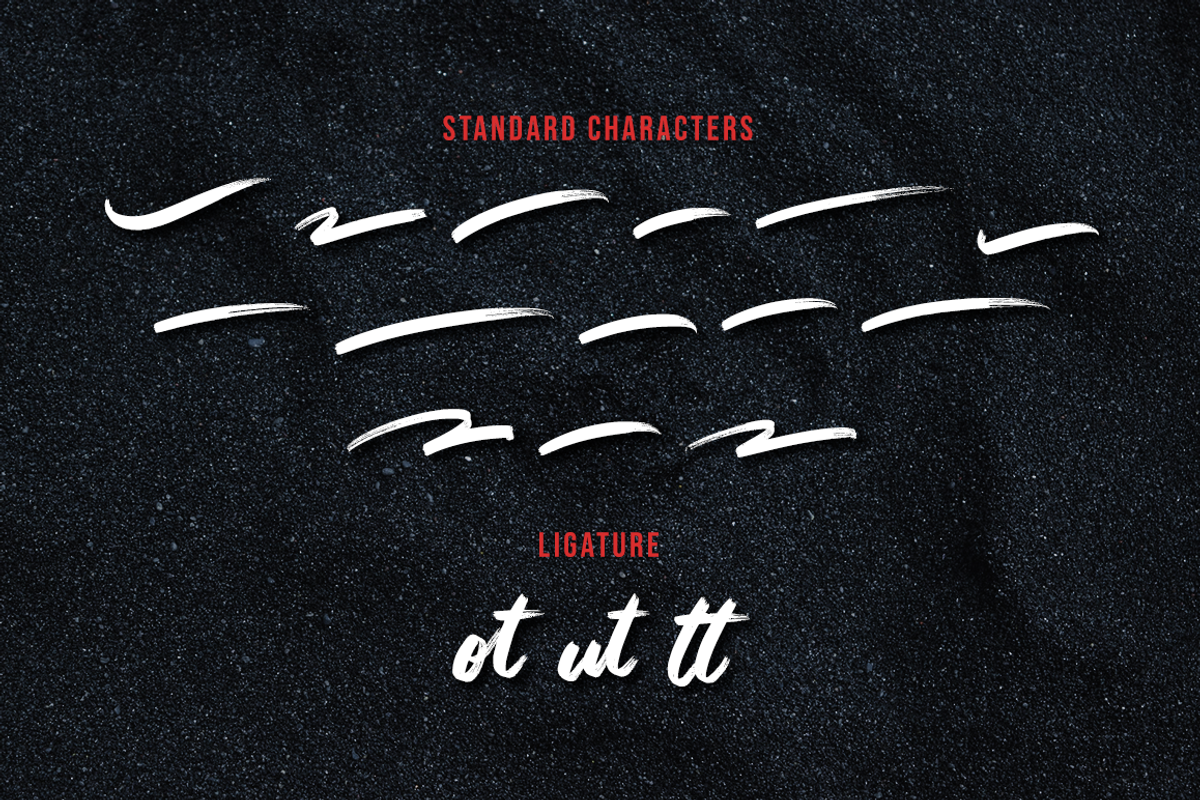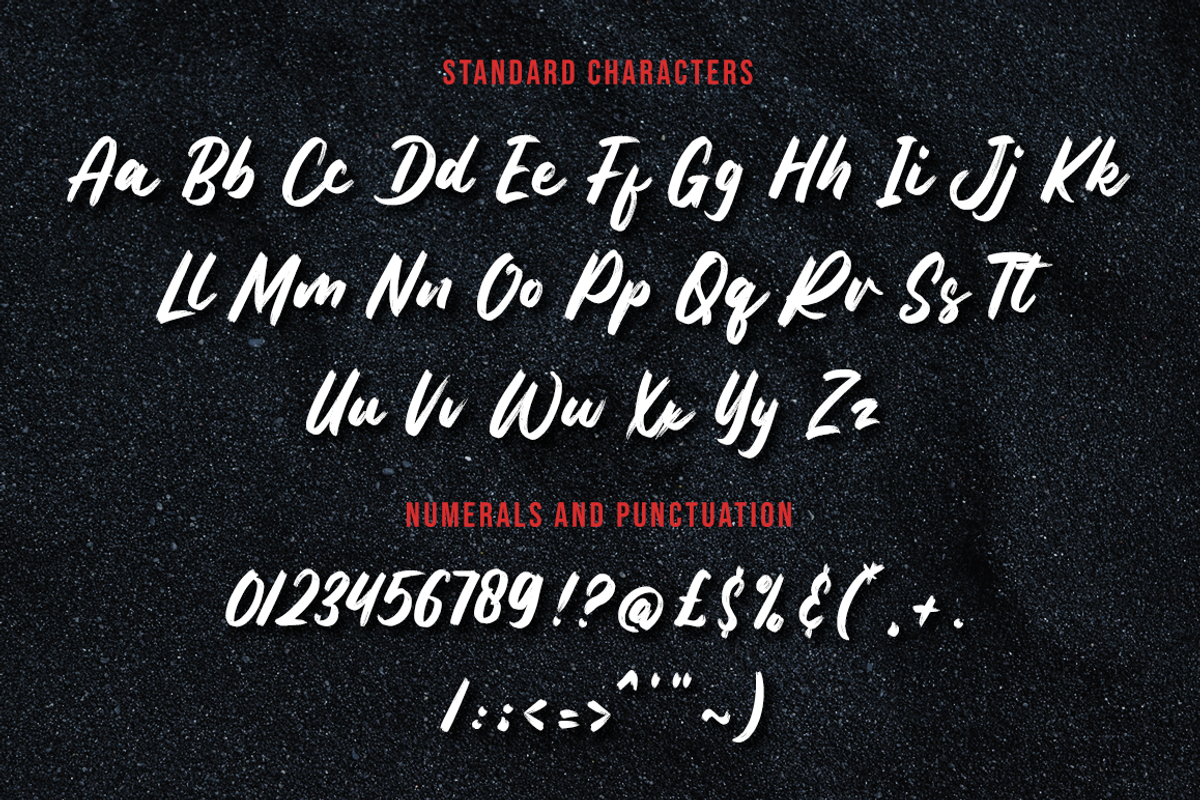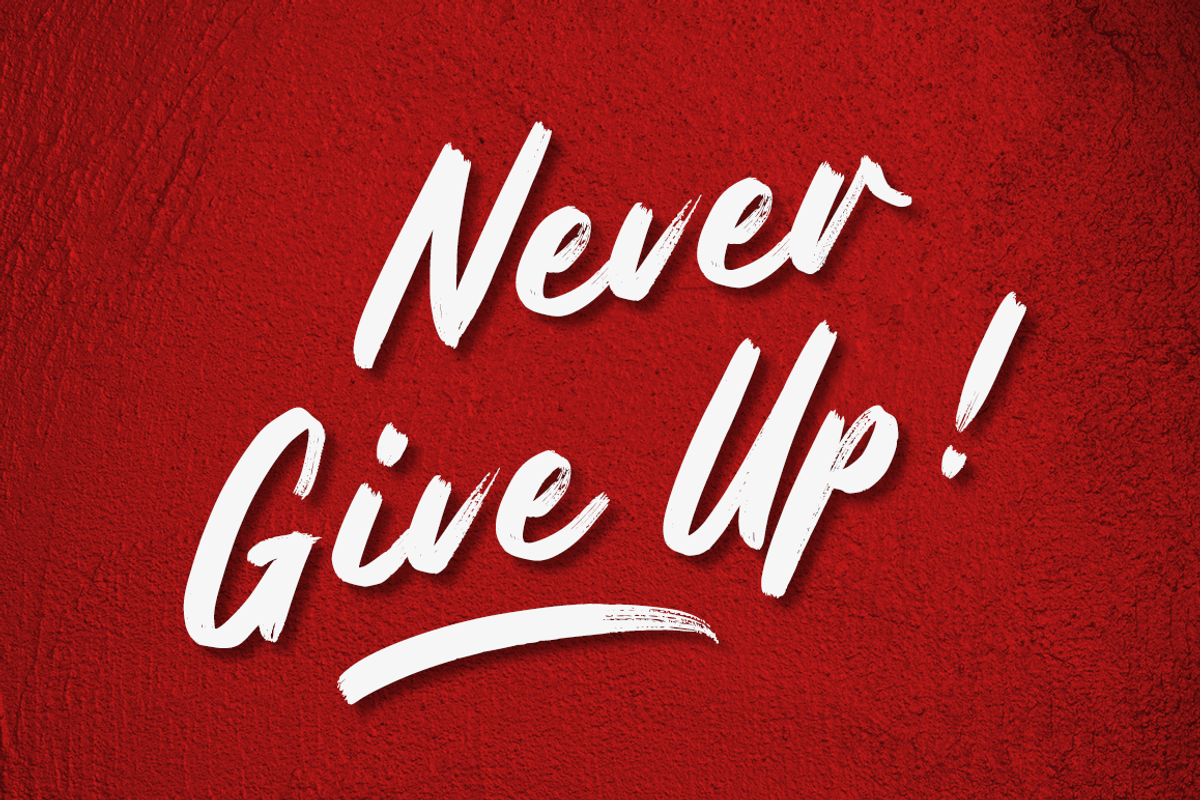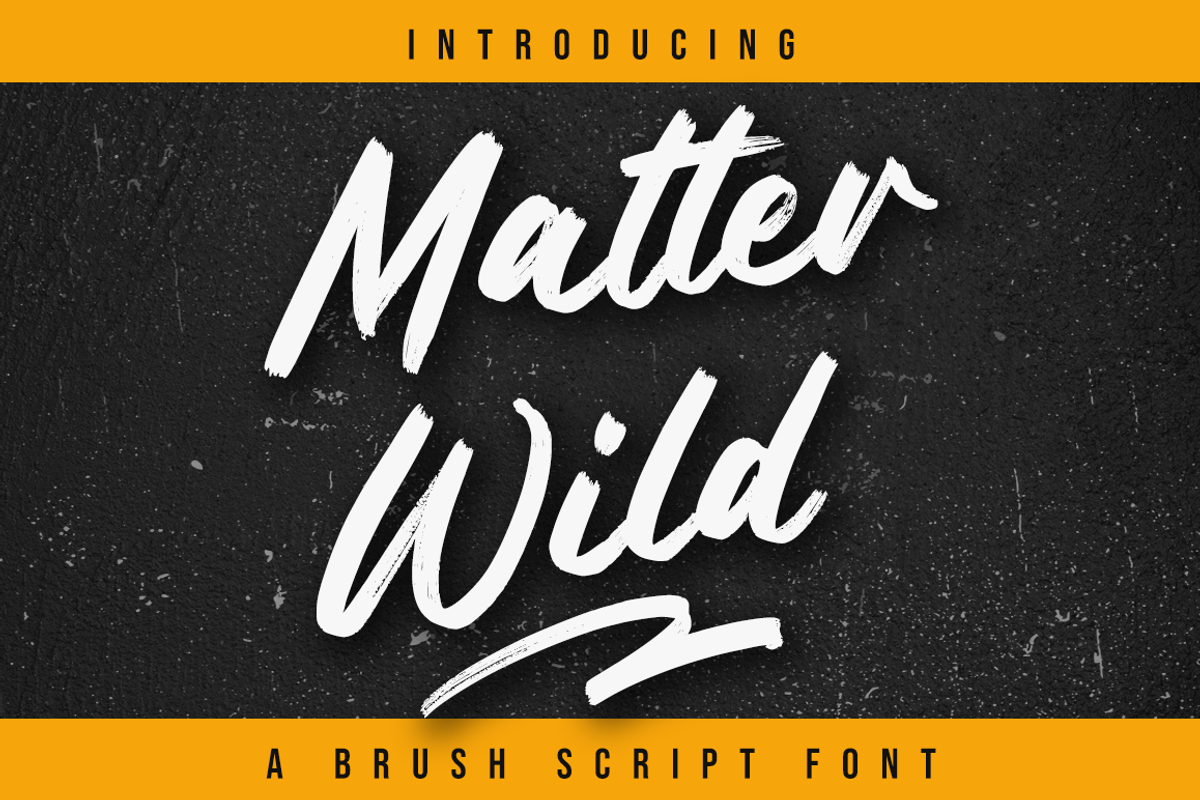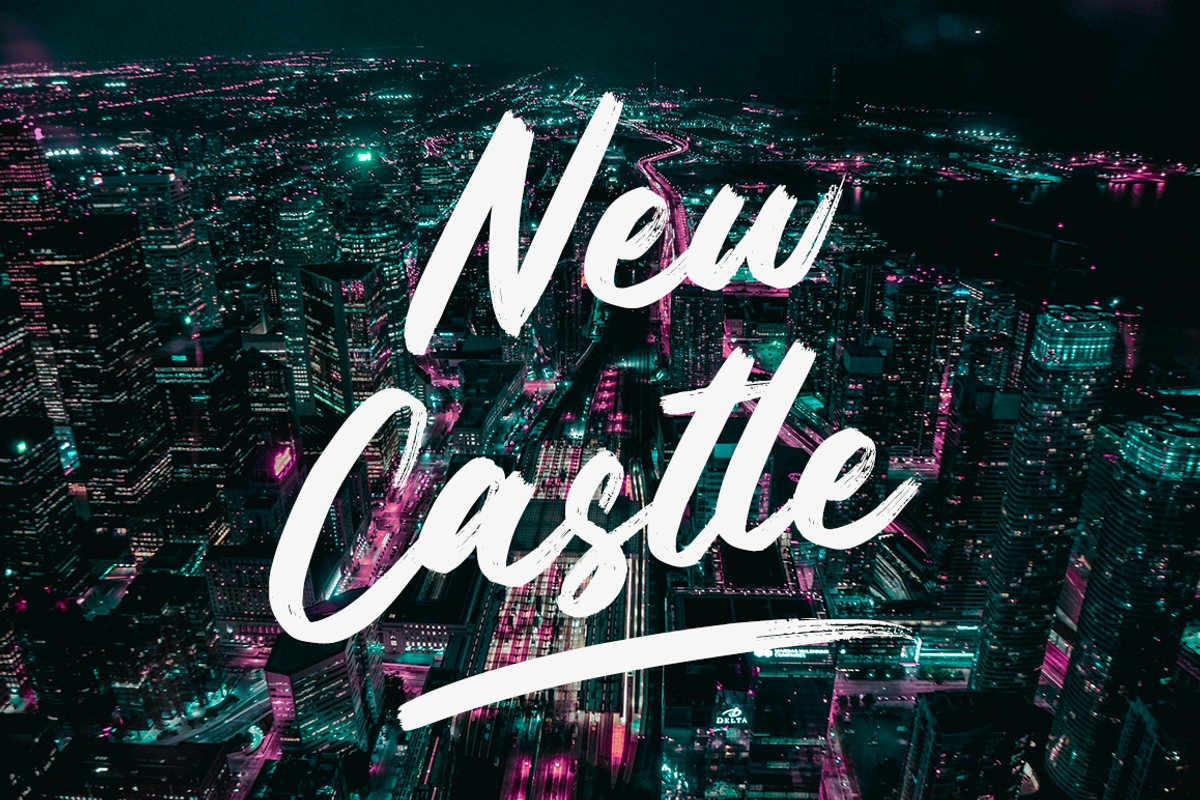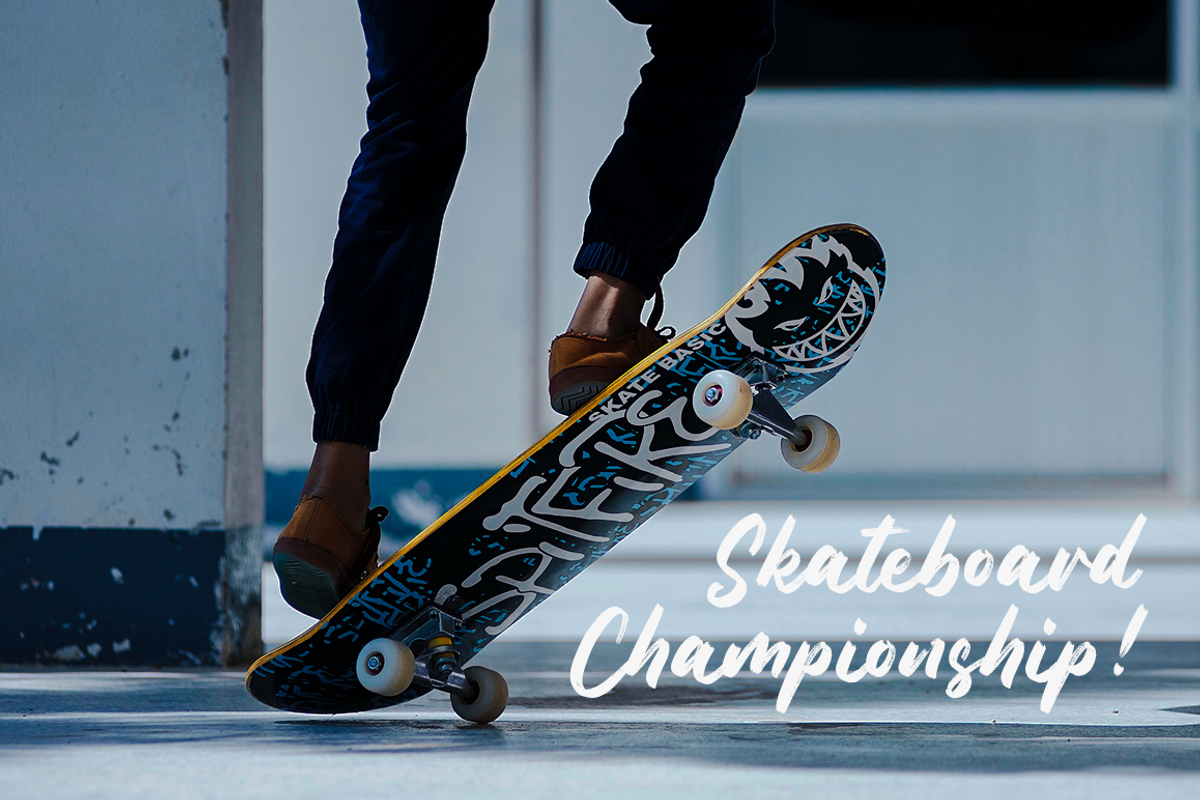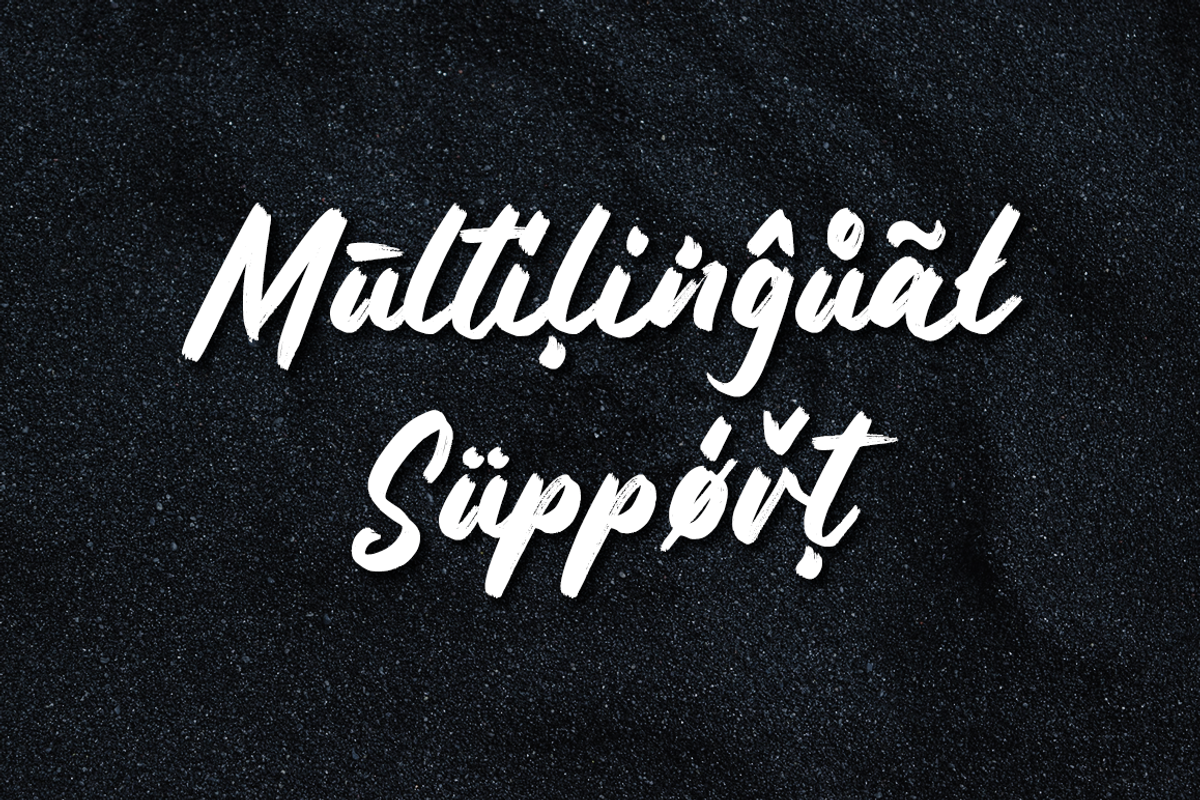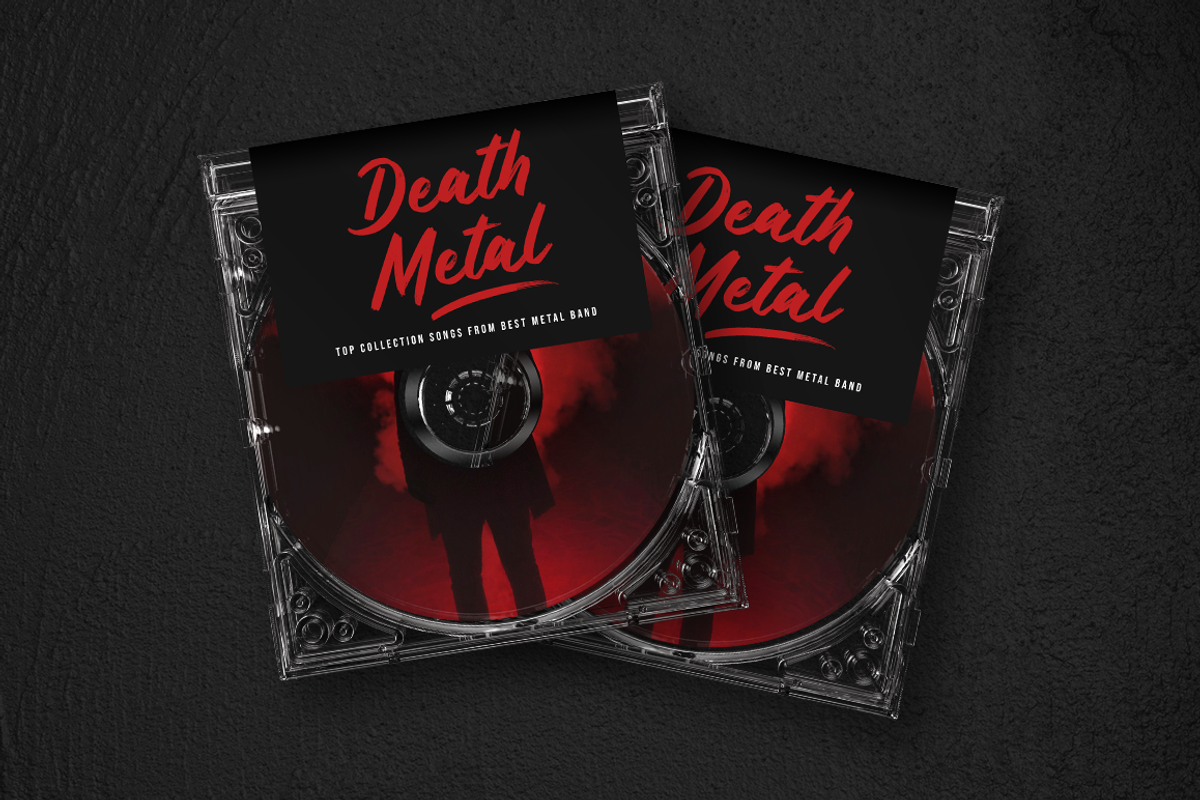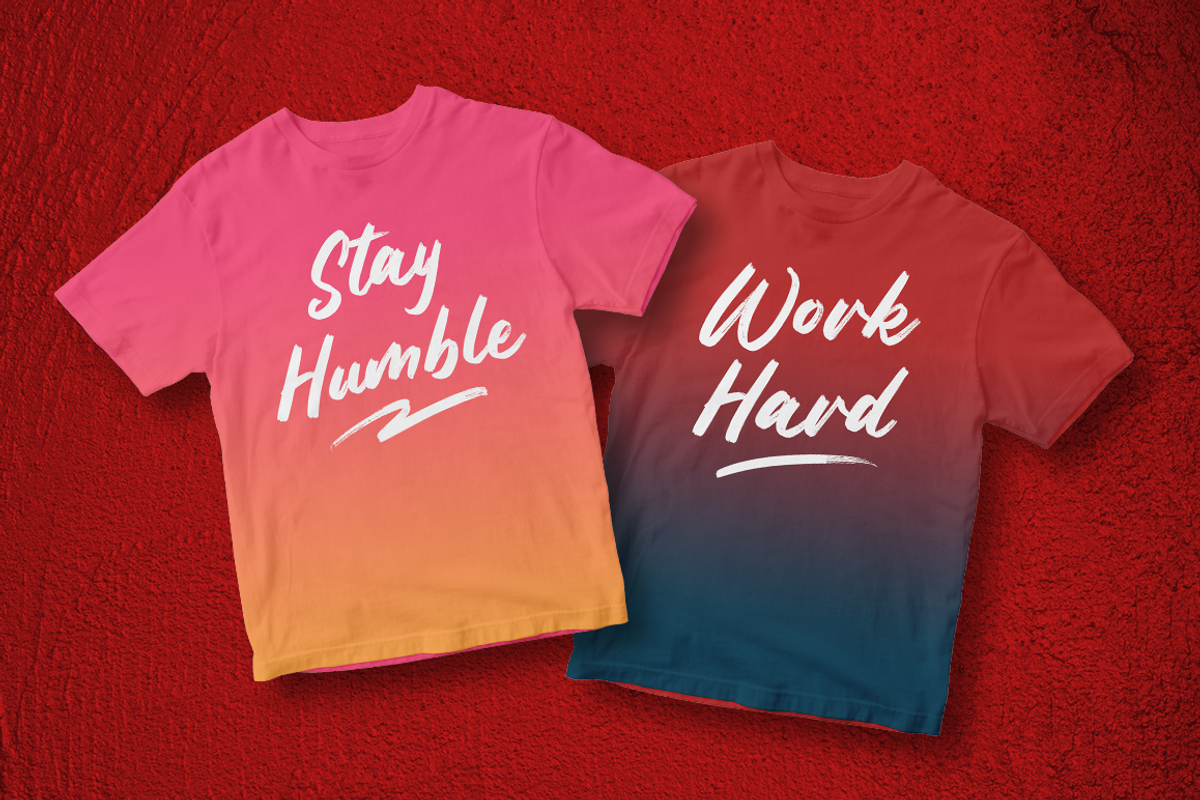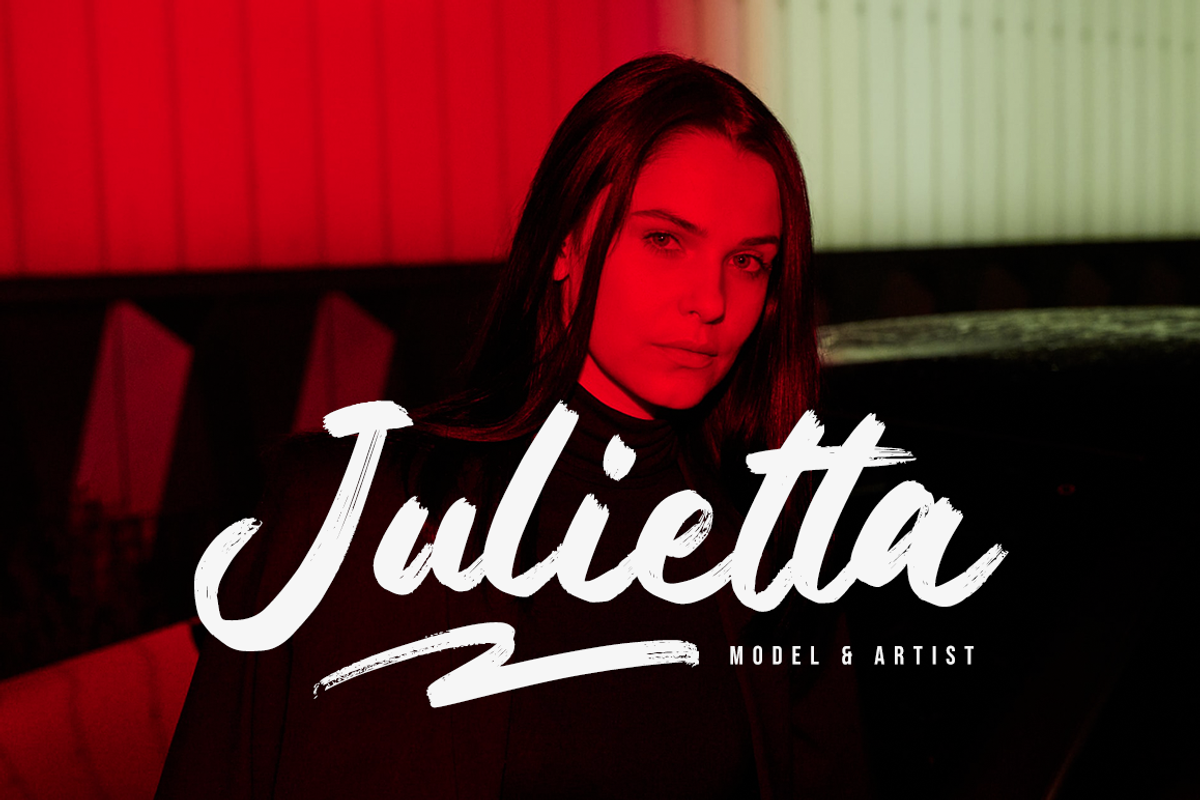
Matter Wild a Brush Script Font
Matter Wild is an organic brushed handwritten font. No matter the topic, this font will be an incredibly asset to your fonts’ library, as it has the potential to elevate any creation.